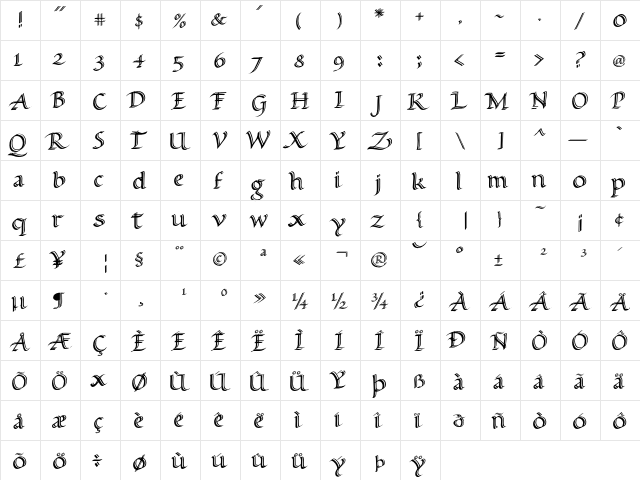
Alice Scrolltip Roman Regular
| Designer | Richard Bradley & David Kettlewell |
Design Context for Alice Scrolltip Roman Typeface
Alice Scrolltip Roman takes a measured approach to typography — its balanced proportions and neutral character make it a reliable workhorse for both digital and print work.
Pro Tip: Use Alice Scrolltip Roman in both headline and body roles to test its range before committing to a single application.